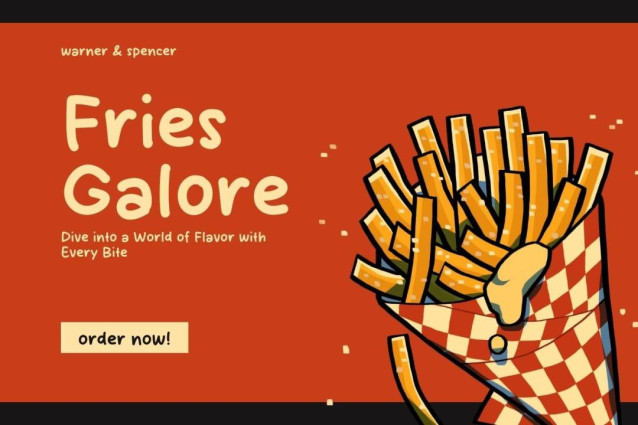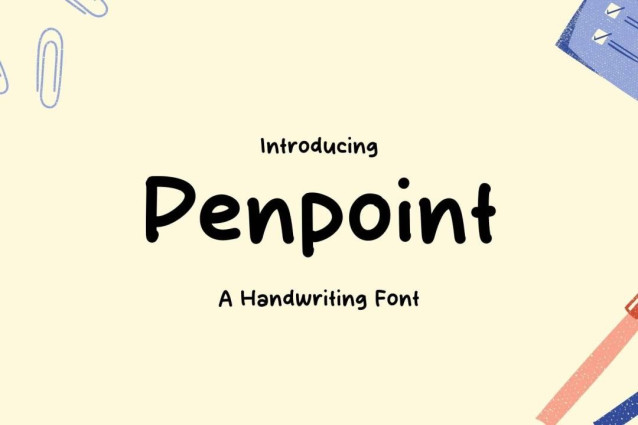
Penpoint Font
Penpoint Font a sweet and friendly handwritten font. Cute and fun, this font is ideal for writing wedding invitations, cards, or any other design that might need a fun touch!